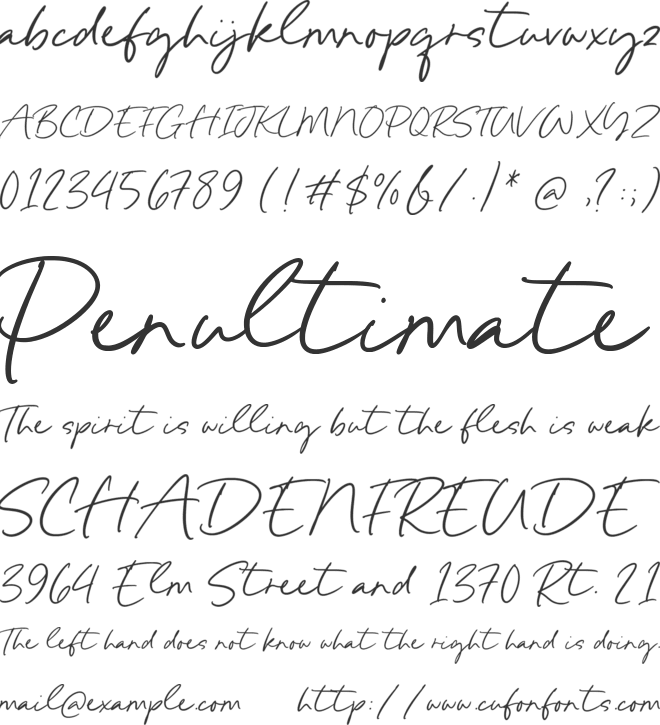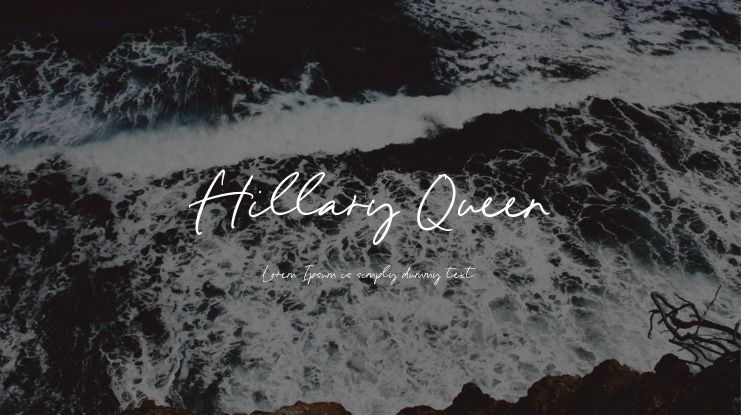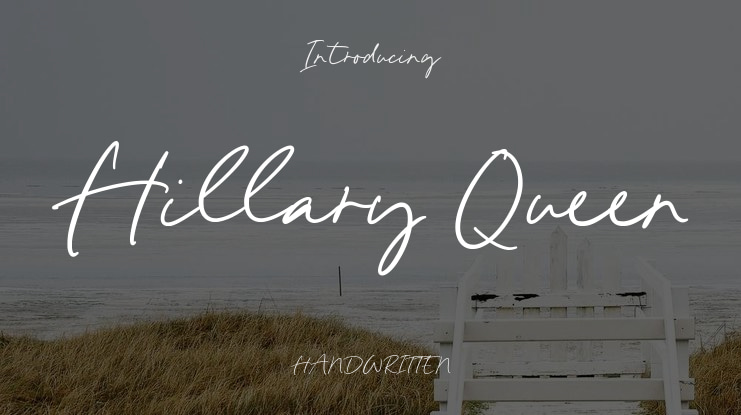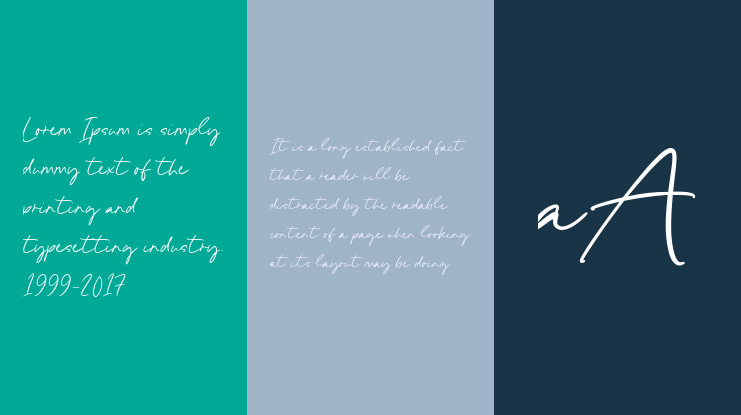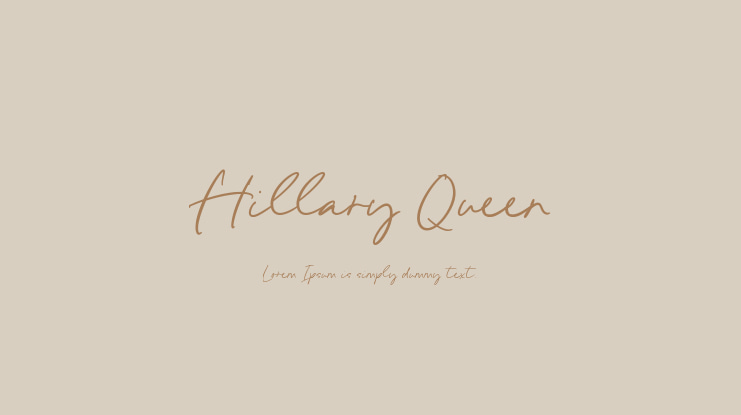
Hillary Queen Font
Introducing Hillary Queen, a charming and quirky hand-lettered font brought to you by Timurtype Studio. This playful font adds a whimsical touch to any project with its uneven baseline and charming irregularities, exuding a sense of fun and creativity. Whether you're designing greeting cards, branding materials, or social media graphics, Hillary Queen infuses a lighthearted and unique flair into your creations. Embrace its lively personality and inject your designs with spontaneity and individuality.